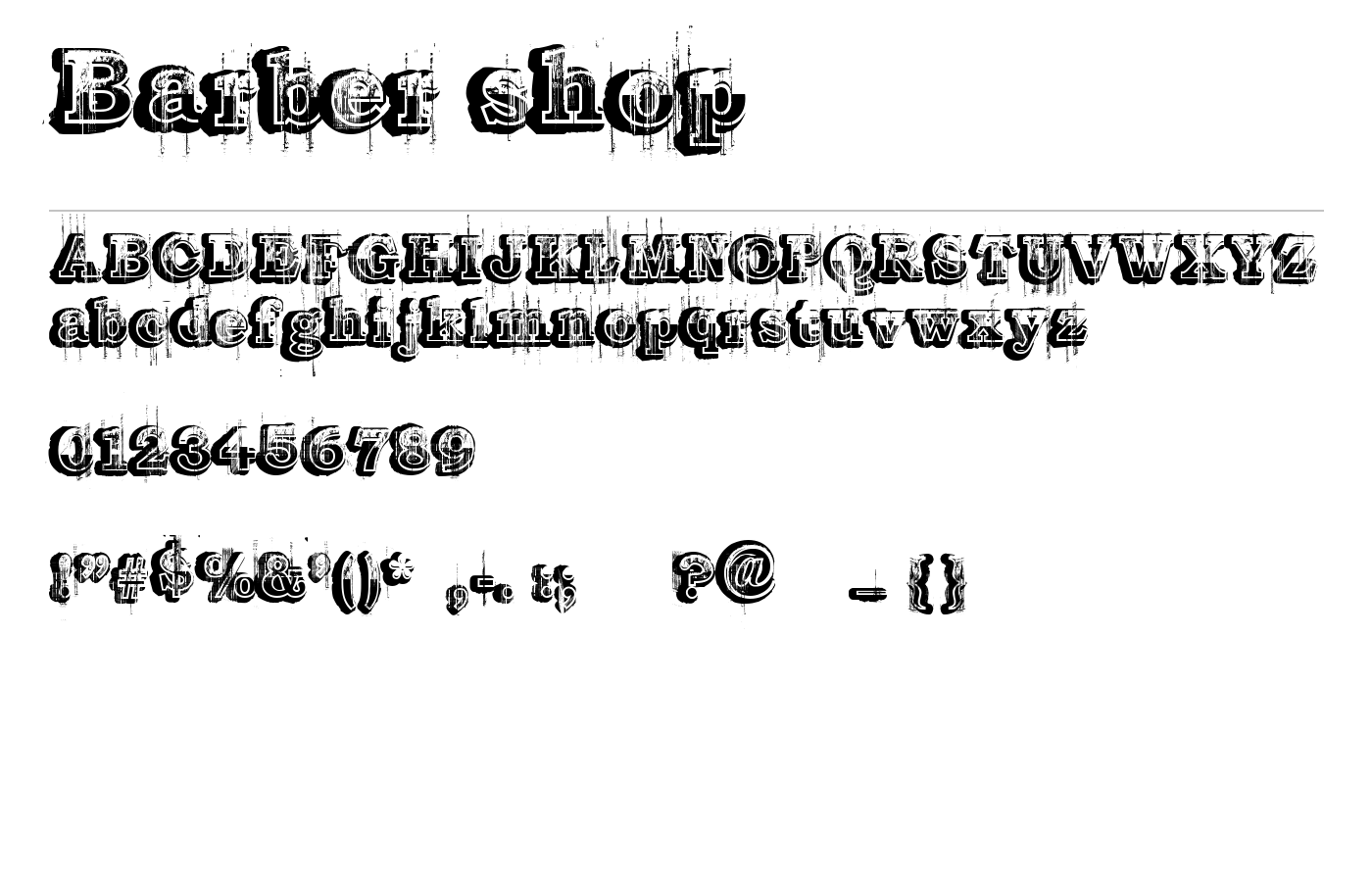
Barber Shop is a bold slab serif font with a distressed, vintage texture that adds a rugged, handcrafted charm. Its strong, blocky letterforms and thick serifs evoke a nostalgic, retro feel perfect for branding with a rustic or old-fashioned vibe. Ideal for logos, posters, and signage, it captures an authentic personality that works well in creative and artisanal contexts.
Barber shop Font
About Barber shop Font